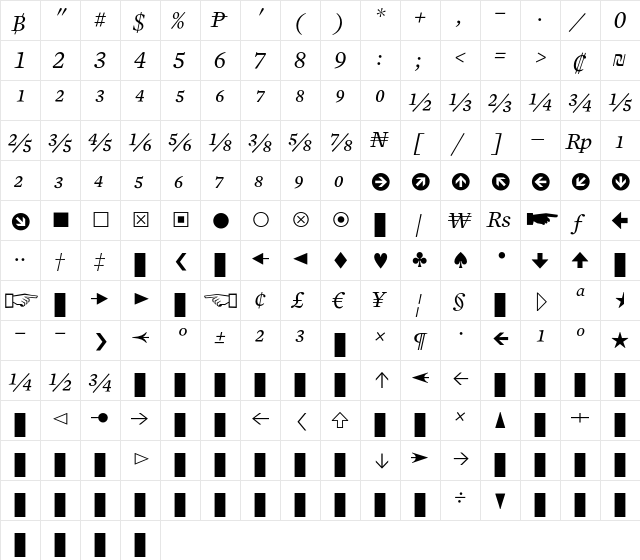
Mercury Numeric G1 Italic
Design Context for Mercury Numeric G1 Typeface
Mercury Numeric G1 offers clean, dependable letterforms without strong stylistic allegiance, making it a practical choice for designers who need flexibility. The dynamic lean of this cut emphasises speed and emphasis in any layout.
Pro Tip: Try Mercury Numeric G1 for annotation and caption copy alongside an upright companion — the contrast in angle creates a dynamic but ordered typographic system.